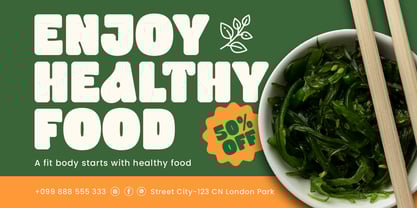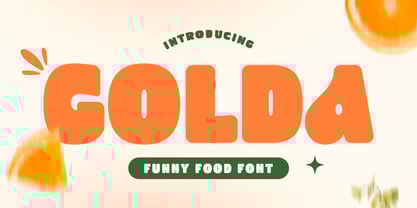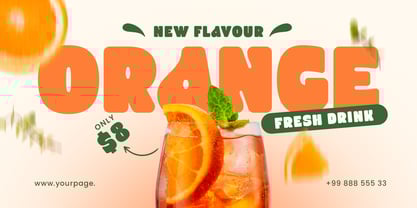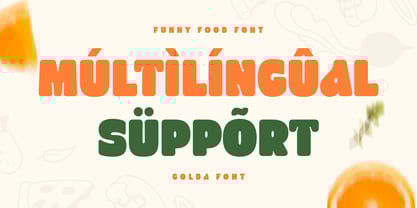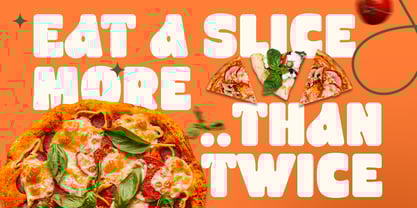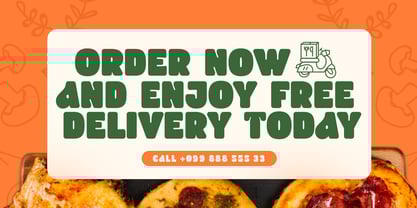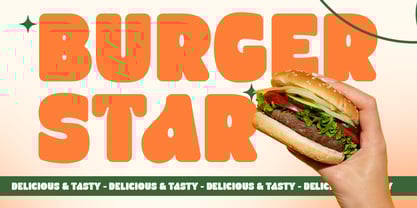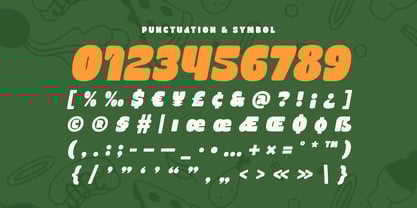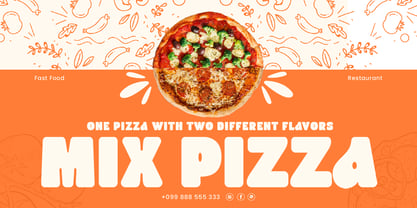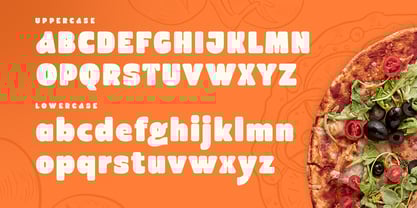
Golda SS
The Golda SS Font Family was designed by Zamroni Hamzah and published by Sensatype Studio. Golda SS contains 2 styles and family package options.
GOLDA is a fun and heavy font designed to bring a playful touch to your food-related projects. With its quirky and whimsical design, GOLDA is perfect for menus, restaurant branding, and culinary creations that aim to delight and entertain. Whether you’re creating a vibrant menu, designing a quirky logo, or developing eye-catching branding materials, GOLDA adds a cheerful and bold character to your work.
The Story Behind GOLDA:
GOLDA was inspired by the joy and creativity found in playful culinary experiences. Designed with a heavy and funny style, GOLDA captures the essence of fun, excitement, and deliciousness. It’s perfect for any project that needs to convey a sense of humor and enjoyment. From lively cafes and fun food trucks to family-friendly restaurants and whimsical food festivals, GOLDA is the ideal font for all things fun and food-related.
GOLDA Font Features:
• Uppercase and Lowercase
• Punctuation, Number, and Symbol
• Multilingual Support
• Opentype Features
Elevate your culinary designs with GOLDA and add a playful, bold touch to your work.